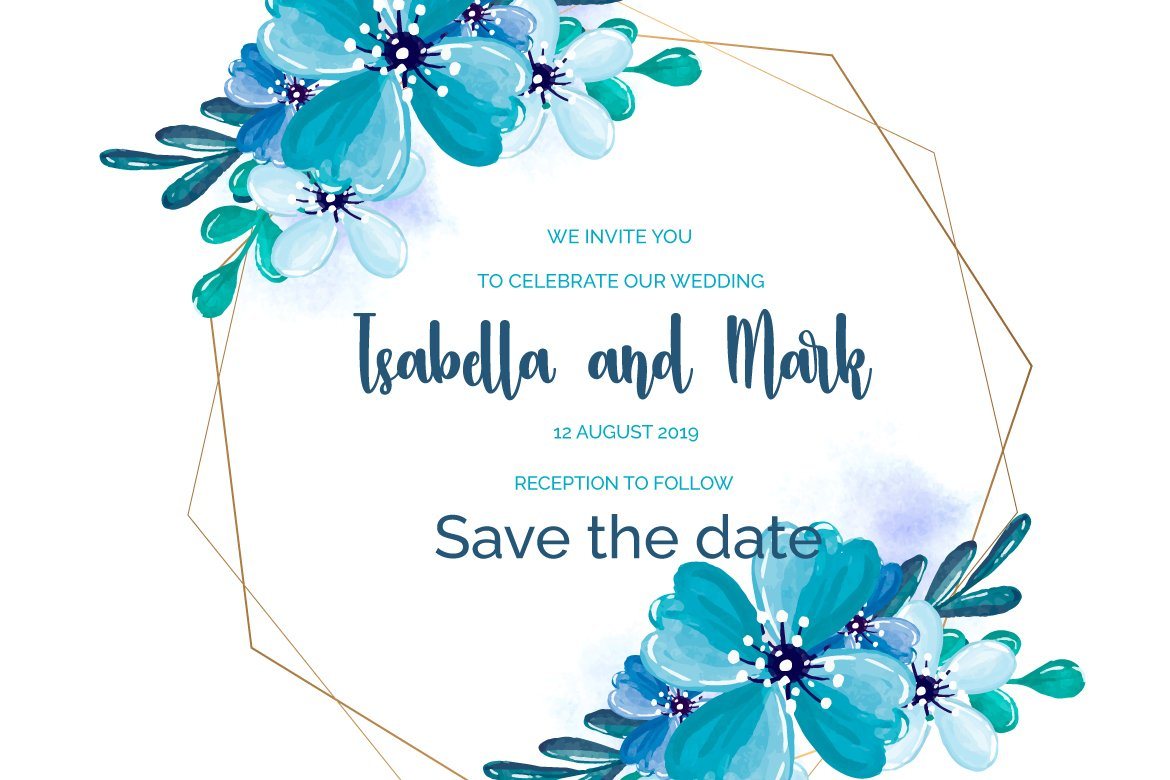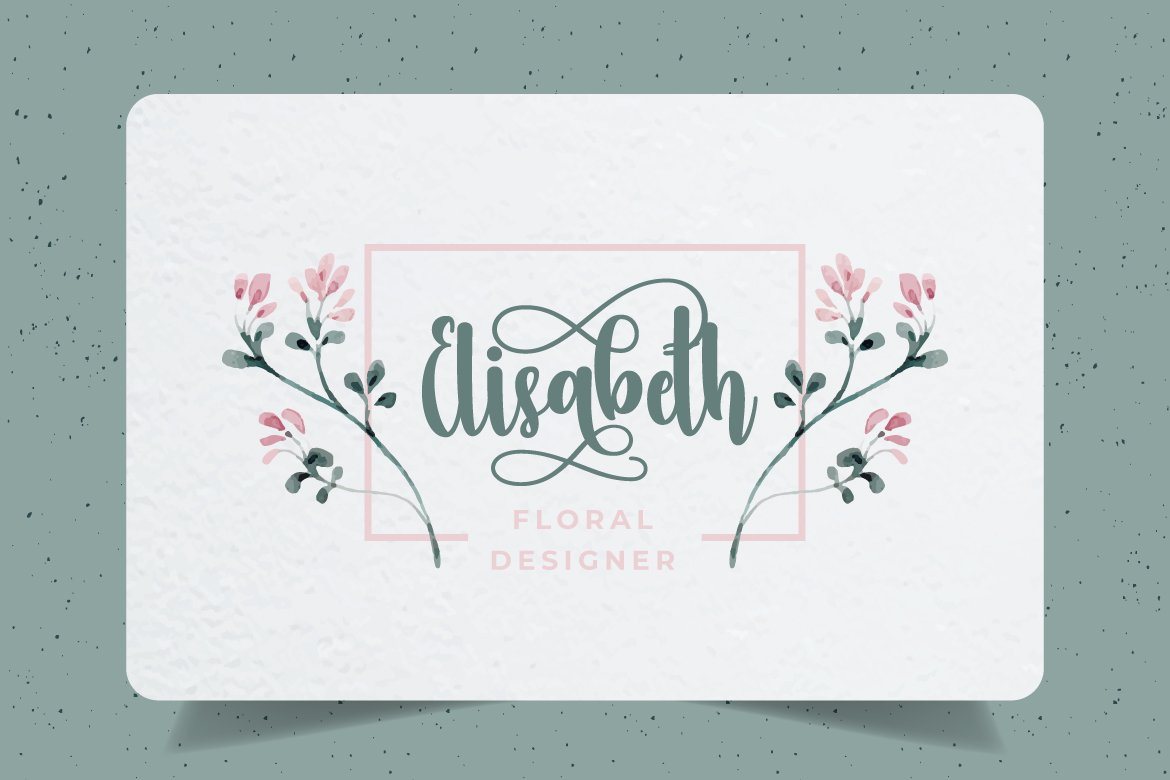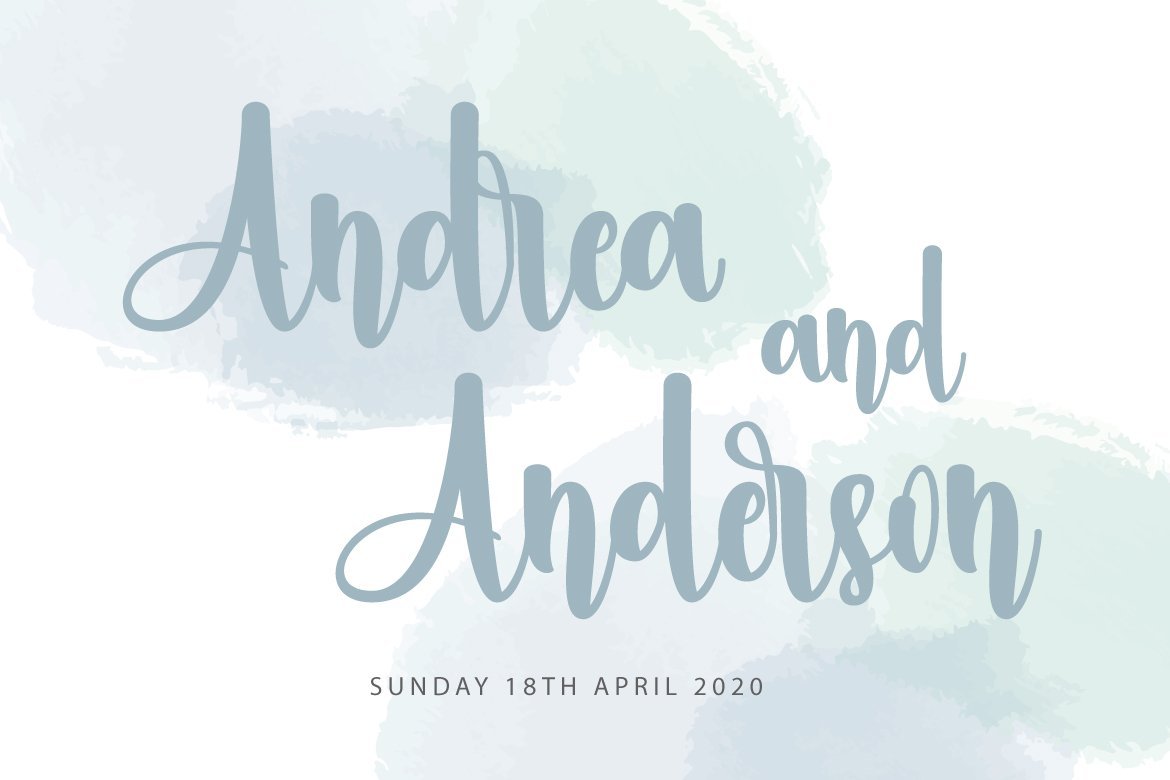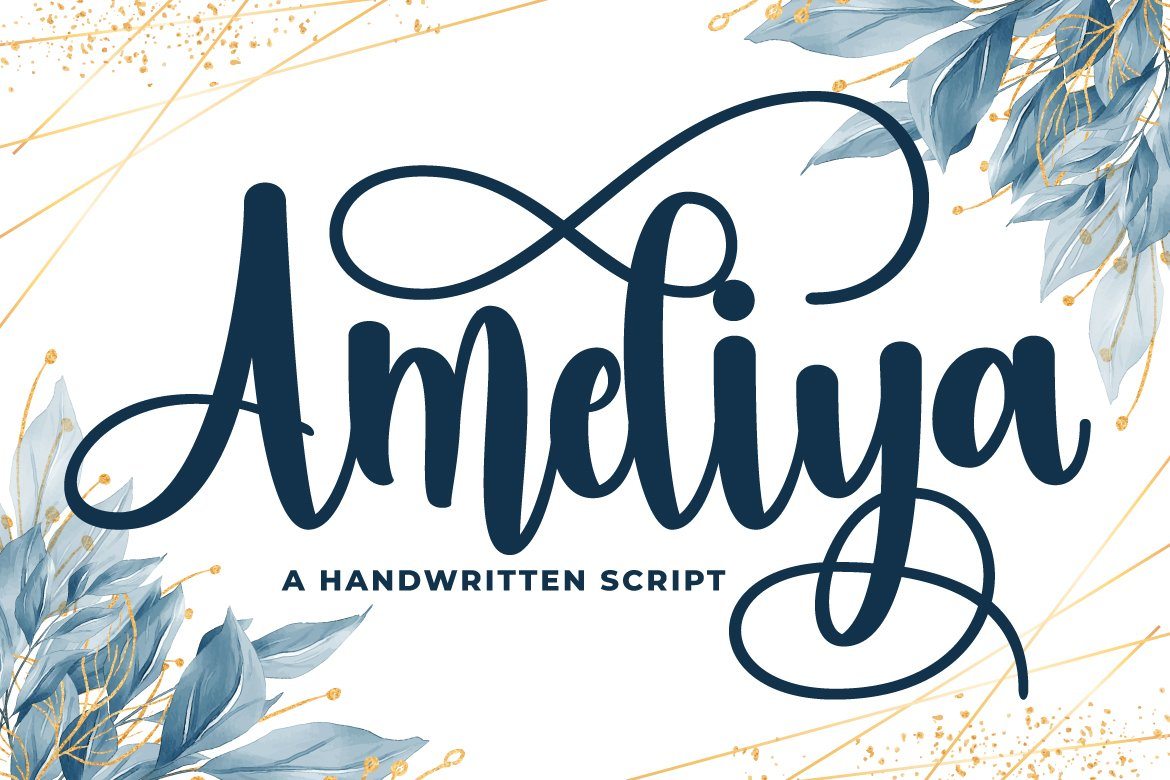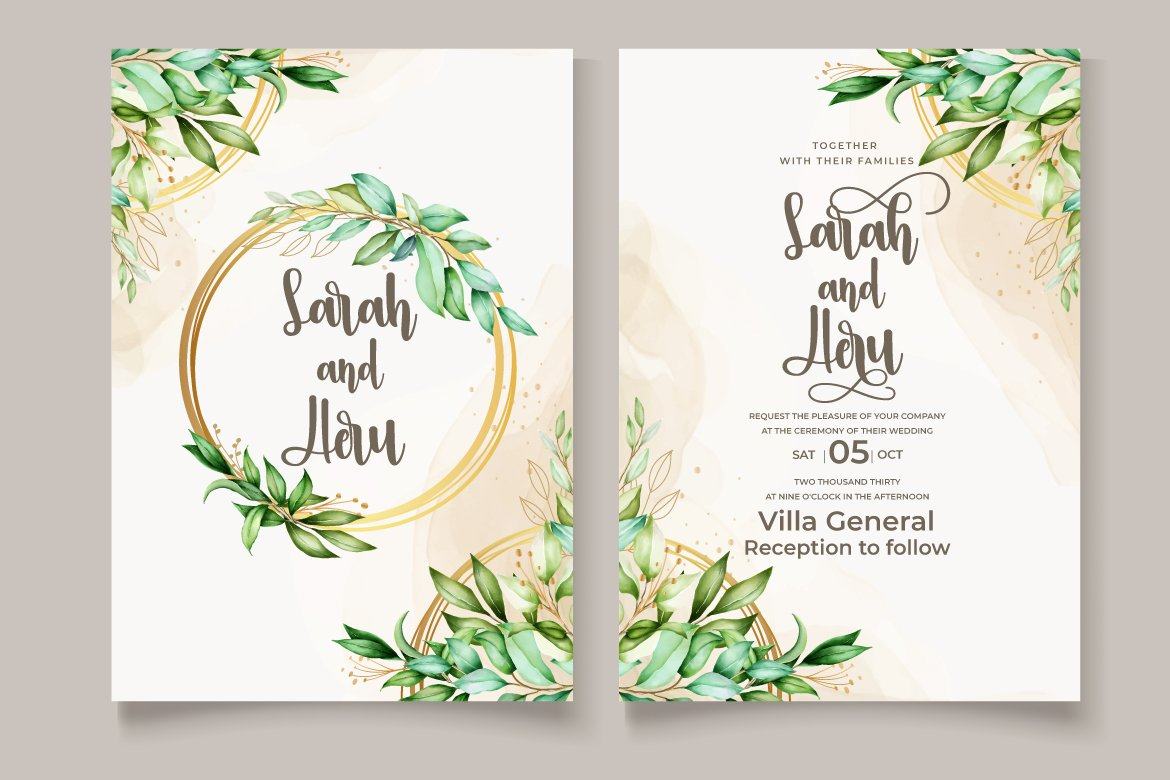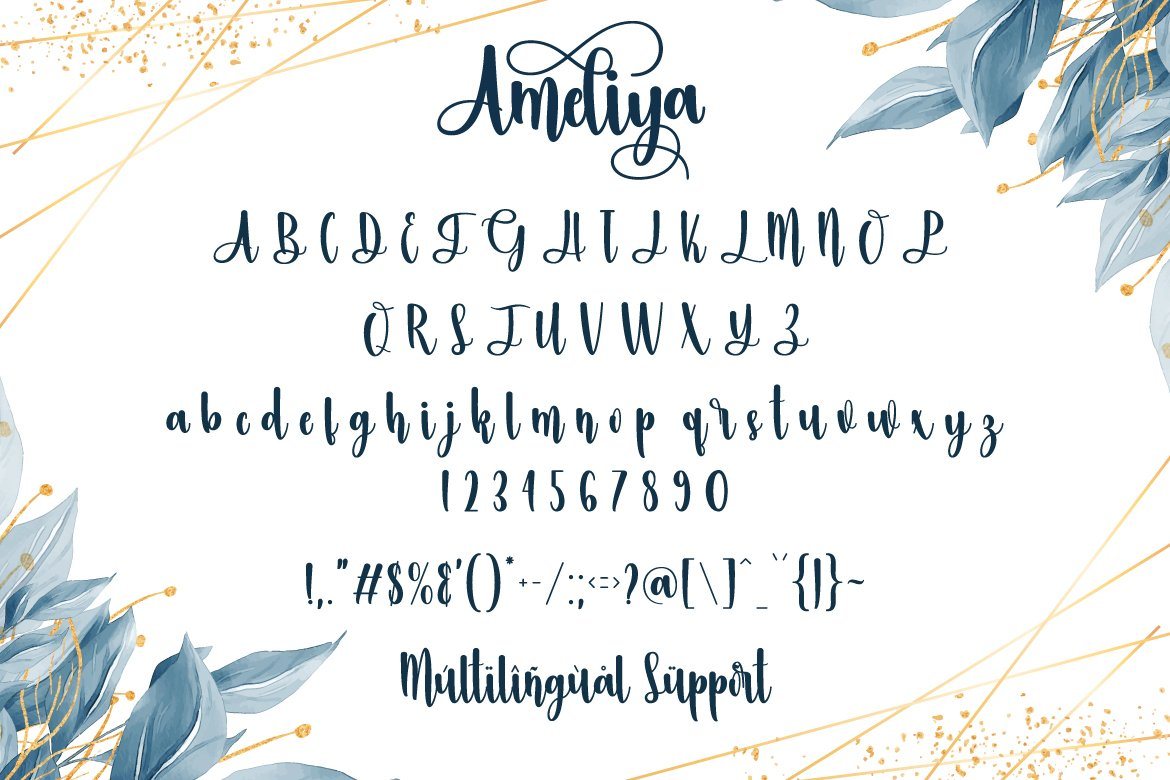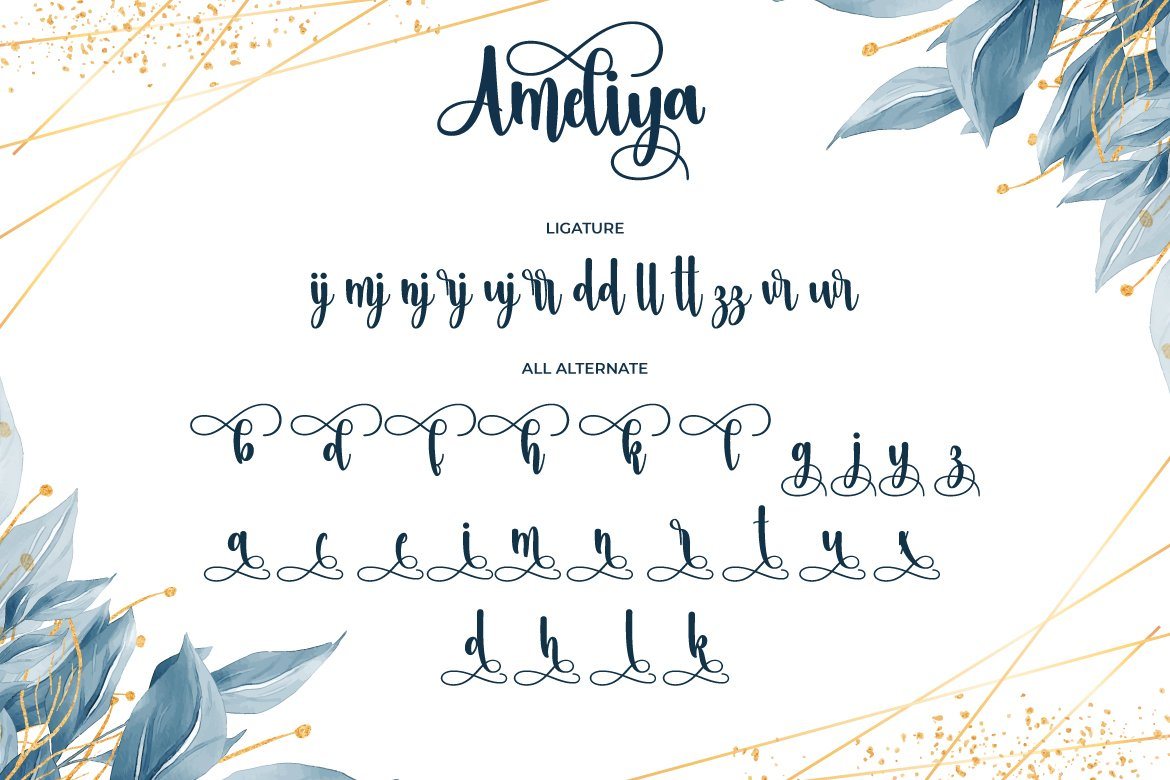
Ameliya
About Ameliya
Ameliya Script is a beautiful and elegant script font. Fall in love with its authentic feel and use it to create gorgeous wedding invitations, beautiful stationary art, eye-catching social media posts, and cute greeting cards. This font is PUA encoded which means you can access all of the cute glyphs and swashes with ease! It also features a wealth of special features including alternate glyphs and ligatures.This font is suitable for any design like branding, quotes and etc. I hope you enjoy it !! Thanks for visiting and downloading my font! what’s inside : Ameliya Script otf,ttf,woff Accents (Multilingual Characters) PUA encoded Numerals and Punctuations (OpenType Standard) Many of alternates ligature